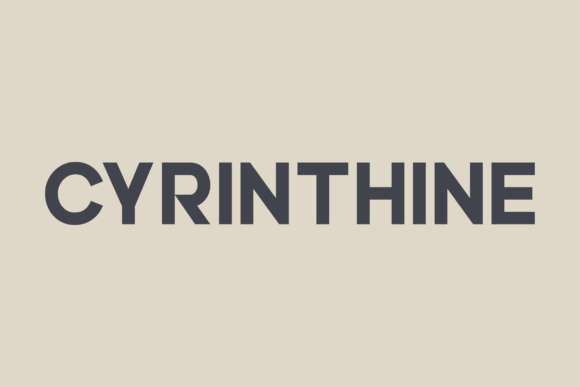
Introducing Cyrinthine Font: The Epitome of Sophistication and Allure
Enter the realm of Cyrinthine Font, a sans serif masterpiece that exudes elegance and invites distinction. Step into a world where harmonious curves, sharp angles, and unwavering precision converge to craft an aura of unmatched sophistication.
Immerse yourself in the boundless possibilities that await you with Cyrinthine Font. Let your creativity flourish, whether it's designing captivating logos that leave an indelible mark, crafting mesmerizing wedding invitations that whisper romance, or conjuring eye-catching advertisements that demand attention. The versatility of Cyrinthine Font knows no bounds, making it the ultimate companion for your creative endeavors.
With Cyrinthine Font, transform mundane web forms into works of art. Watch as your designs ignite with vitality, captivating your audience and leaving a lasting impression. Craft digital experiences that transcend boundaries, marrying functionality with an aesthetic splendor that commands attention.
Discover the Perfect Harmony of Form and Function
Beyond its undeniable beauty, Cyrinthine Font embodies the essence of functionality. Embrace a font that complements your visionary creations, enhancing readability and comprehension. Witness how effortlessly Cyrinthine Font integrates into print magazines, captivating readers with its crisp, clean lines and meticulously balanced letterforms.
Unleash the Power of Creativity
Cyrinthine Font is more than just a collection of letters; it's an invitation to unleash your boundless creativity. Let your imagination soar as you explore endless design possibilities, knowing that Cyrinthine Font will elevate your work with its timeless elegance.
Join the ranks of discerning designers, tastemakers, and visionaries who have embraced Cyrinthine Font. Witness the transformation as your designs transcend the ordinary, captivating hearts and minds with their refined beauty and unwavering impact.